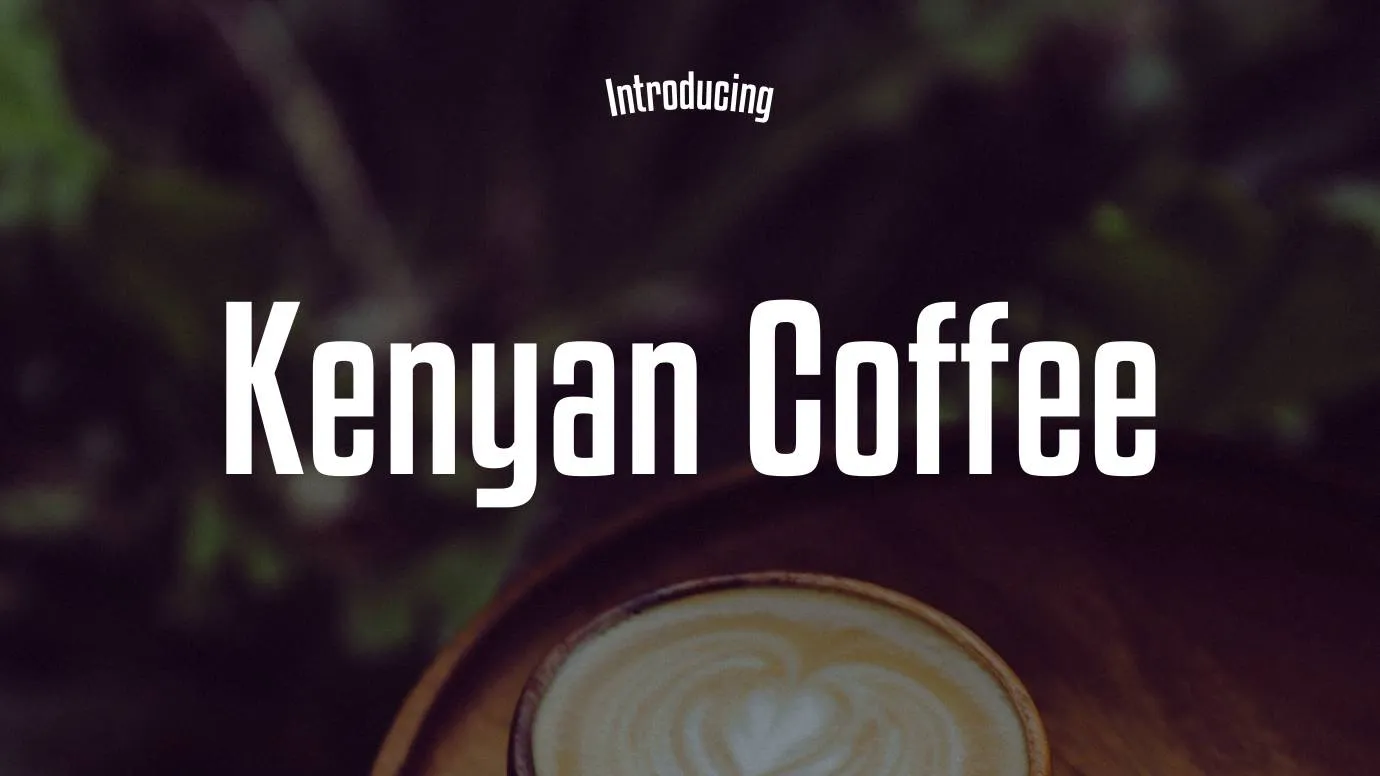
Kenyan Coffee Font Family is a very popular sans-serif typeface with a neat and clean appearance. Ray Larabie is the main and original designer of this typography and published by Typodermic Fonts.
Kenyan Coffee Font
NameKenyan Coffee Font
TypeSans Serif
DesignerRay Larabie